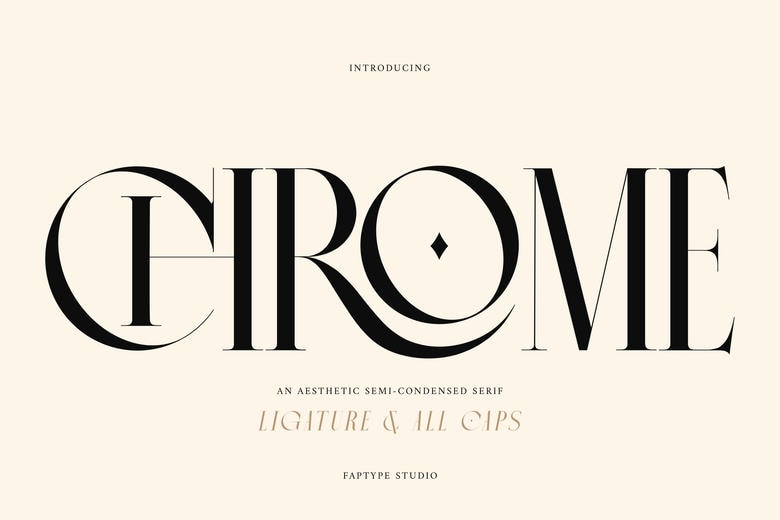
Chrome Slab, our fresh aesthetic semi-condensed serif font that is perfect for both business and creative projects. This font features uppercase letters and sharp lines and is going to be a perfect fit for any of your design endeavours. Chrome Slab offers up to 45 exquisite ligatures, hand designed to make your typefaces finer and distinctive.
These ligatures ensure that formations of symbols interconnect letter shapes smoothly to produce very effective transitions that enrich the design of your text. Apart from its beautiful ligatures, this font also provides multilingual language, which makes it a perfect font for any project that need a variety of language.
Regardless of whether you are using English or Spanish, French or German and any other language, Chrome Slab guarantees integration and clear type needs on the various Chrome platforms. The semi-condensed appearance of Chrome Slab ensures that it saves as much space as possible without interfering with positive and effective outcomes of the designs.
Its slim and yet sophisticated design lends it to virtually any usage, whether it be in news and editorial, branding, packaging, or digital signage. Using Chrome Slab you will get an effective instrument in your hands that will help you create amazing and looking very crisp designs. This font has good looks, it can be used with a variety of ligatures, as well as in numerous languages which makes it a perfect choice for any designer willing to get that special impact.
Chrome Slab Serif Font